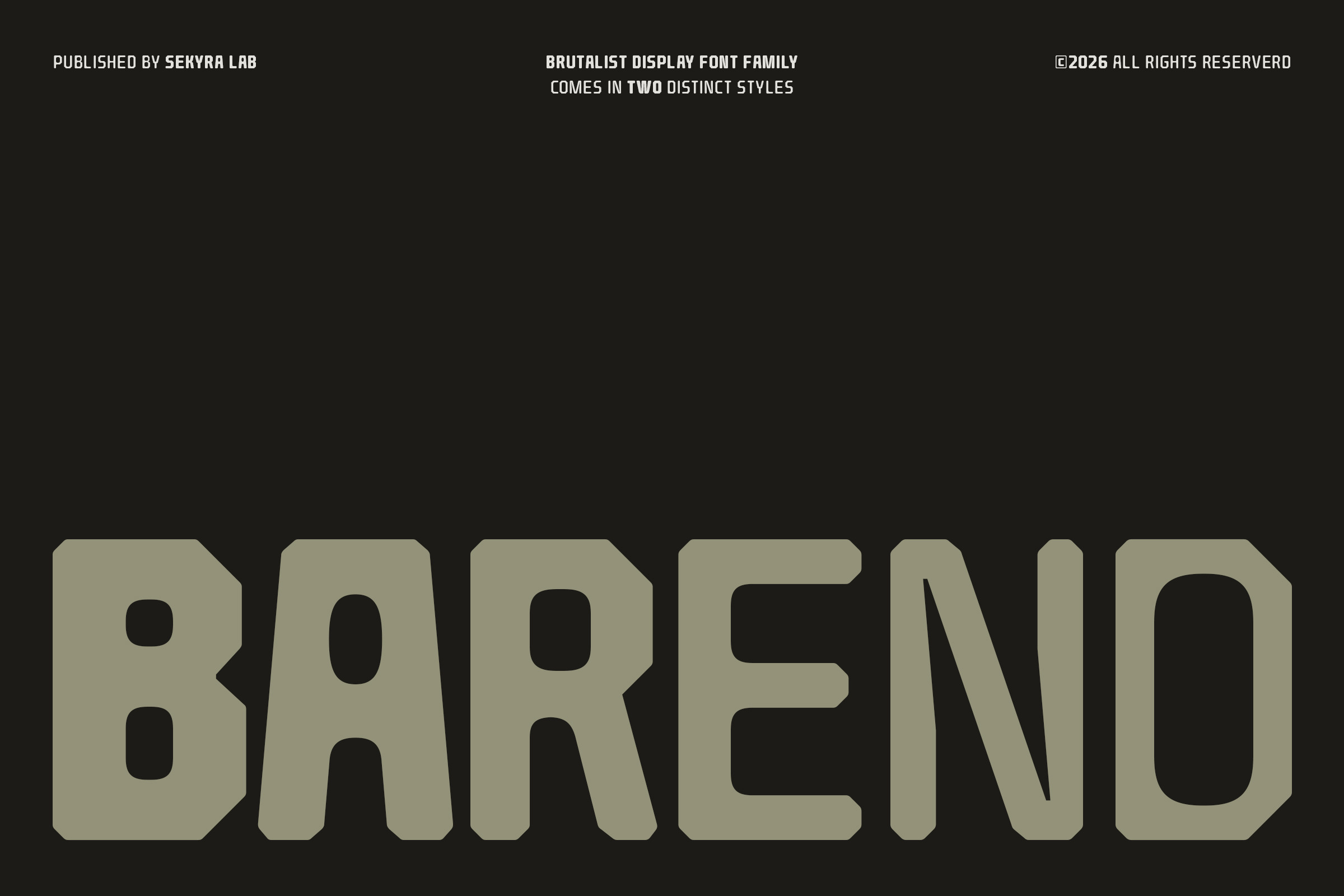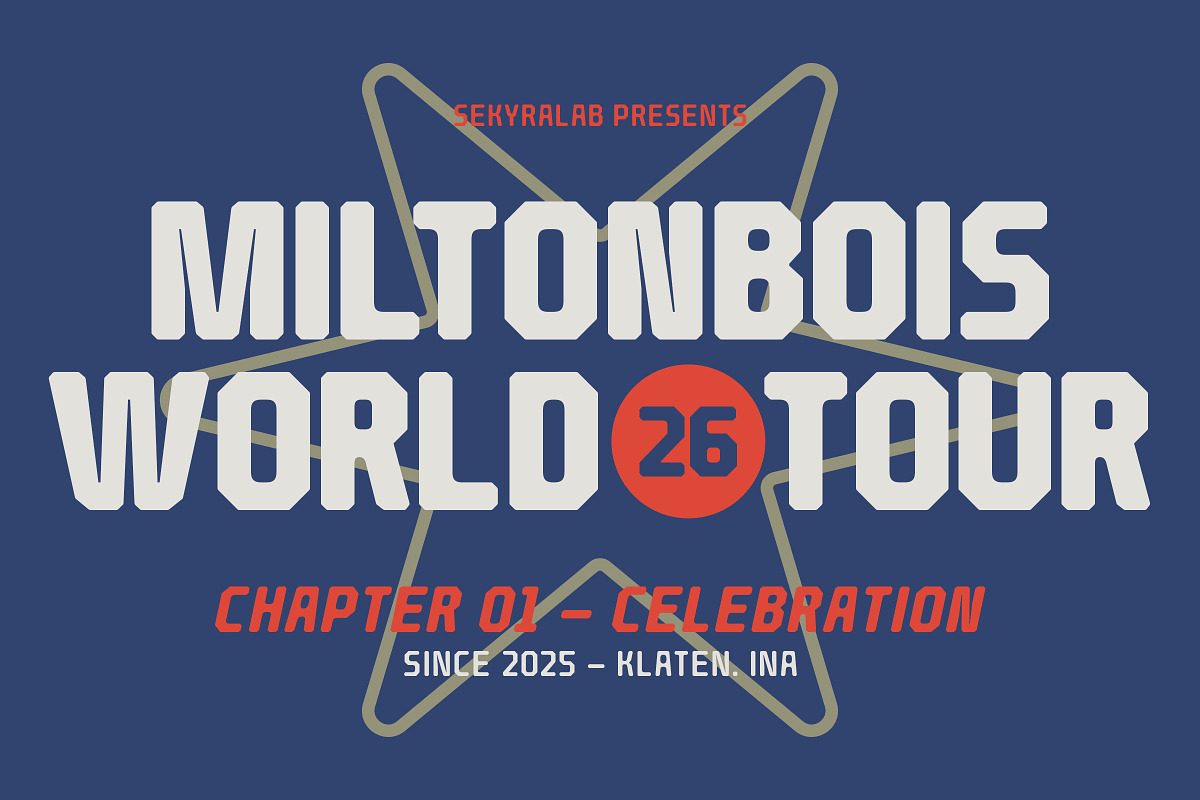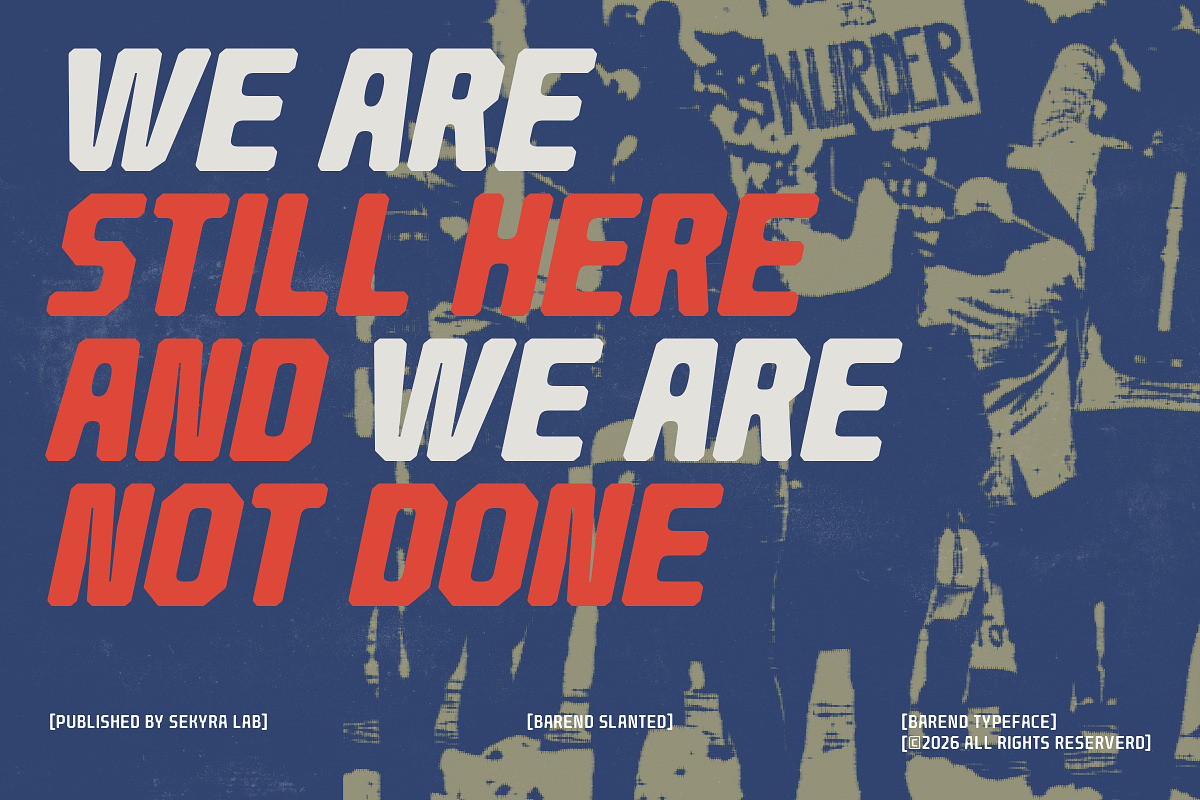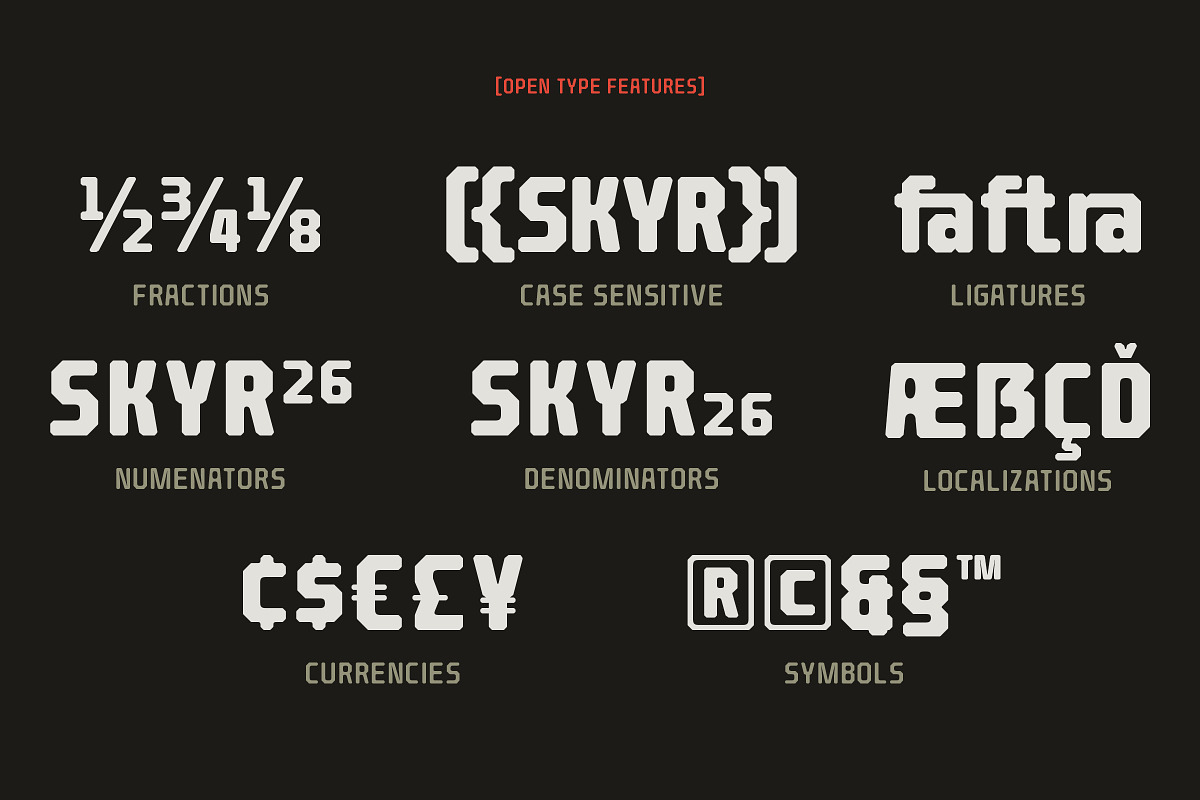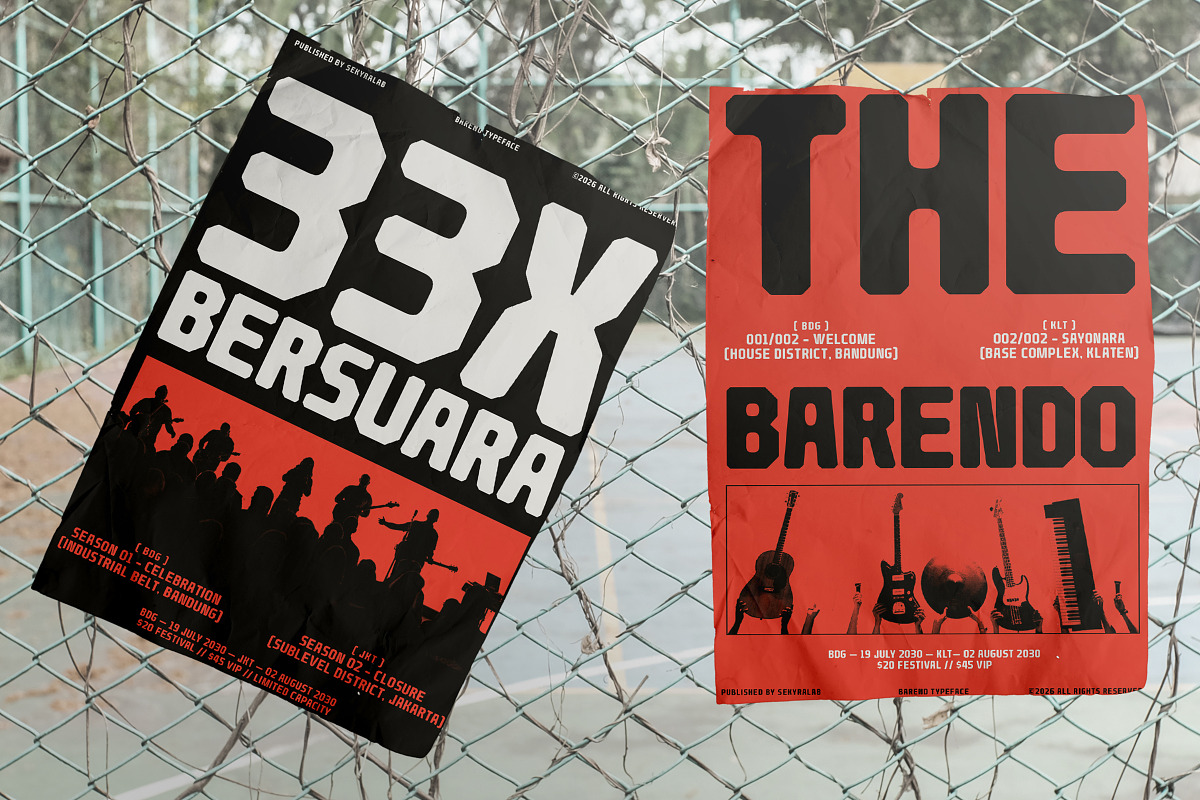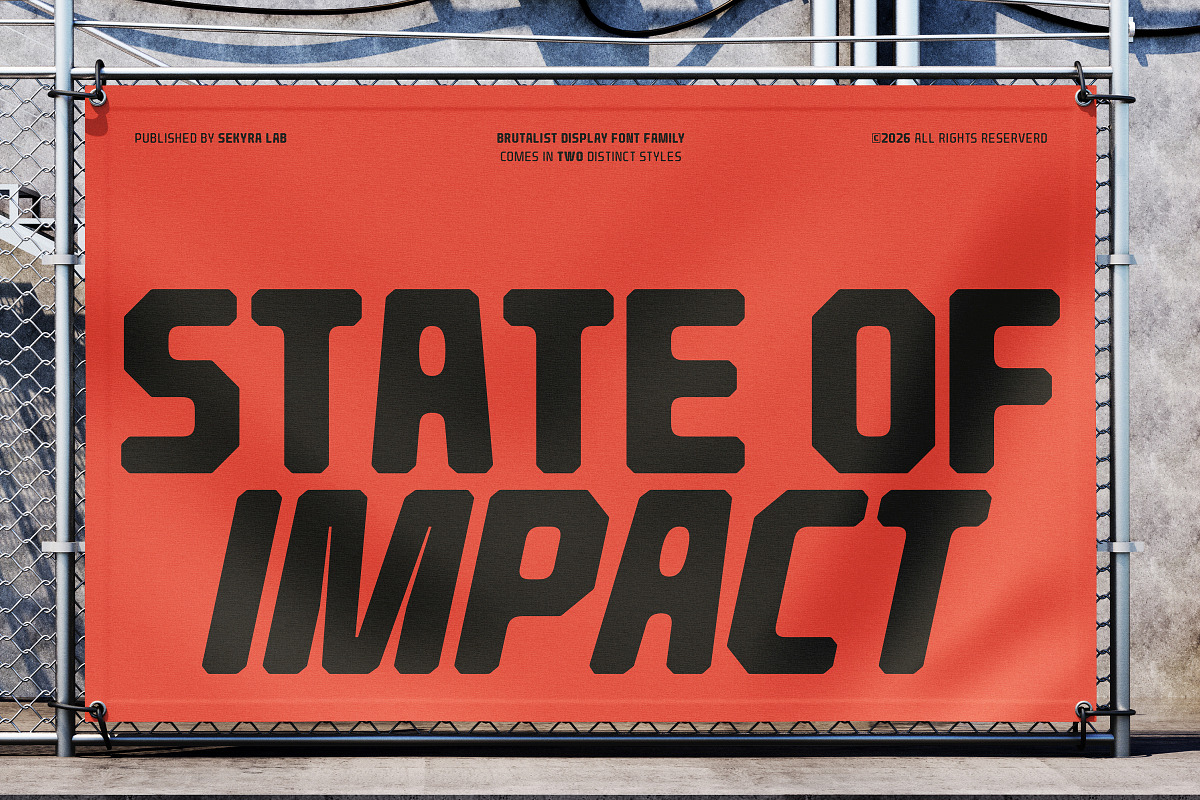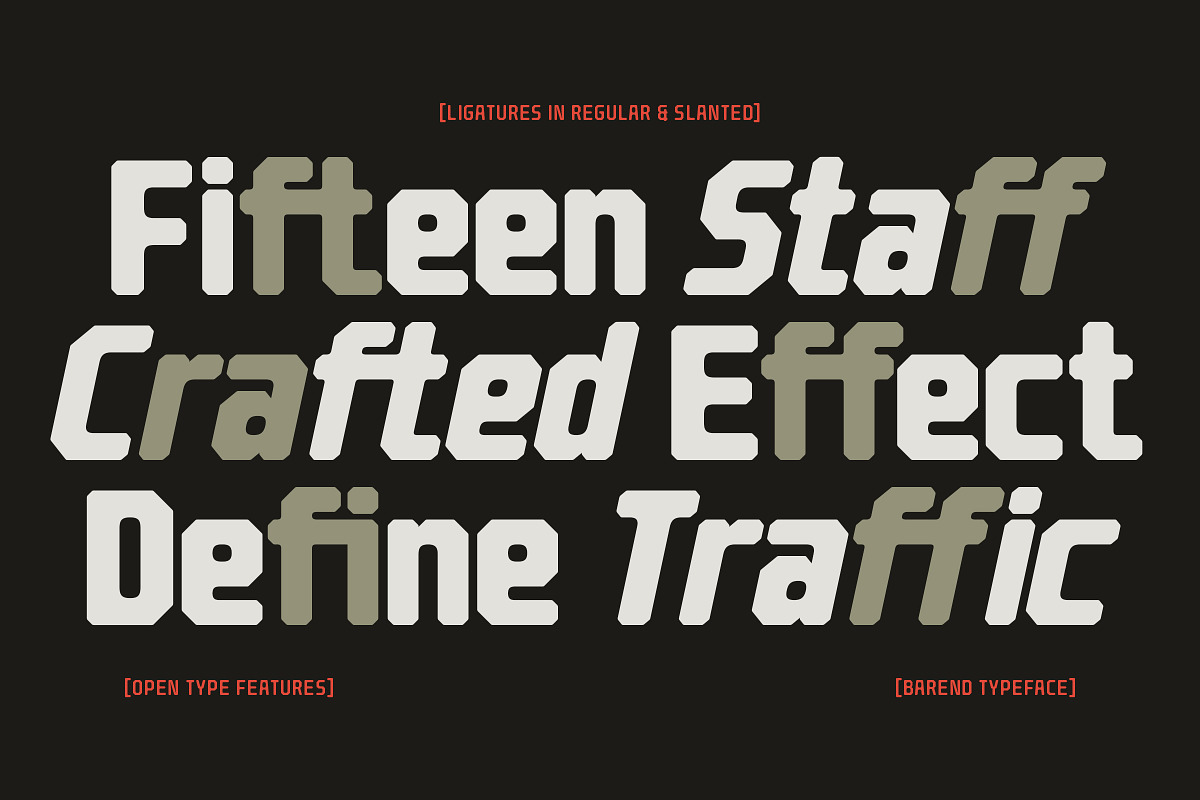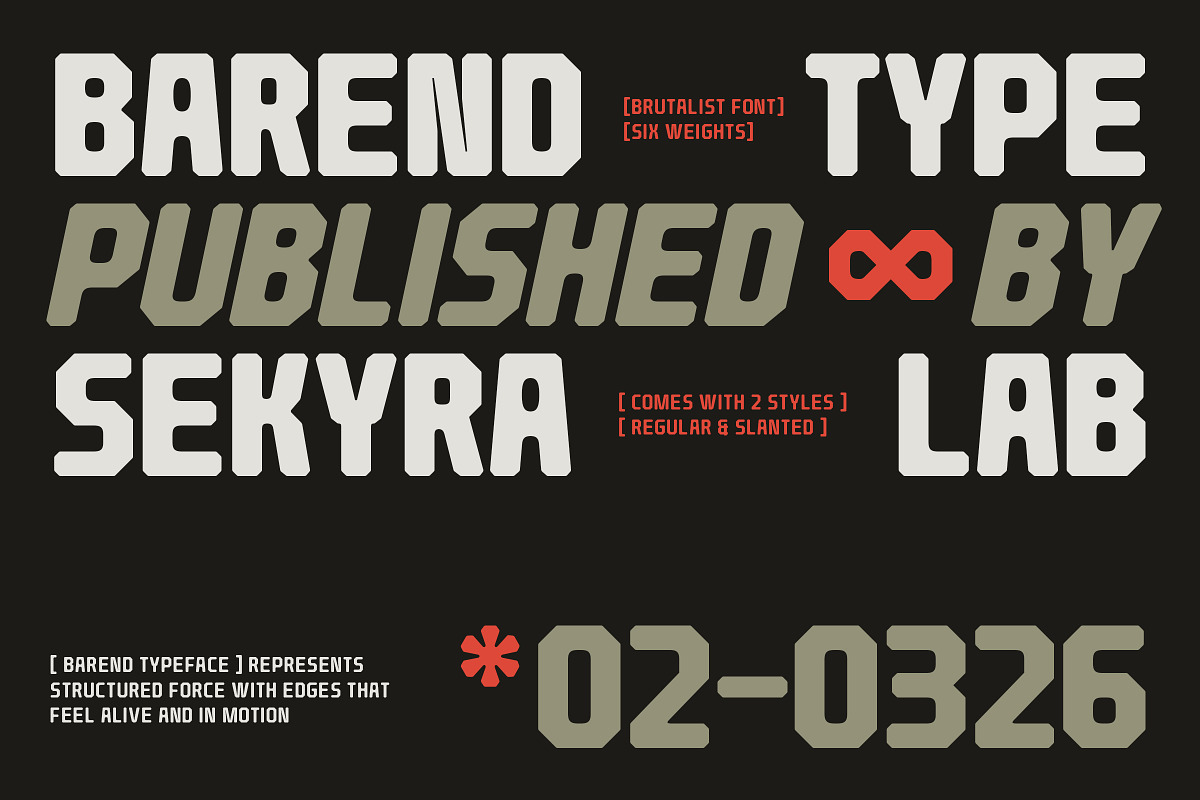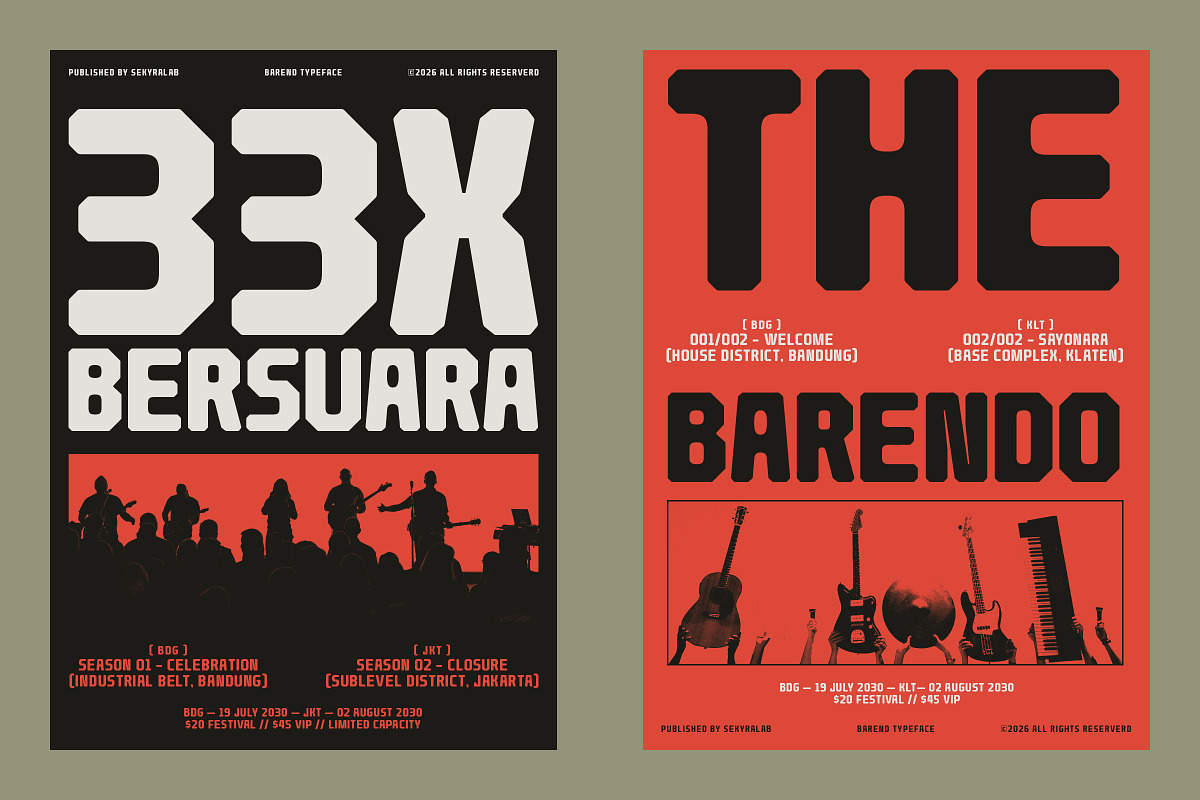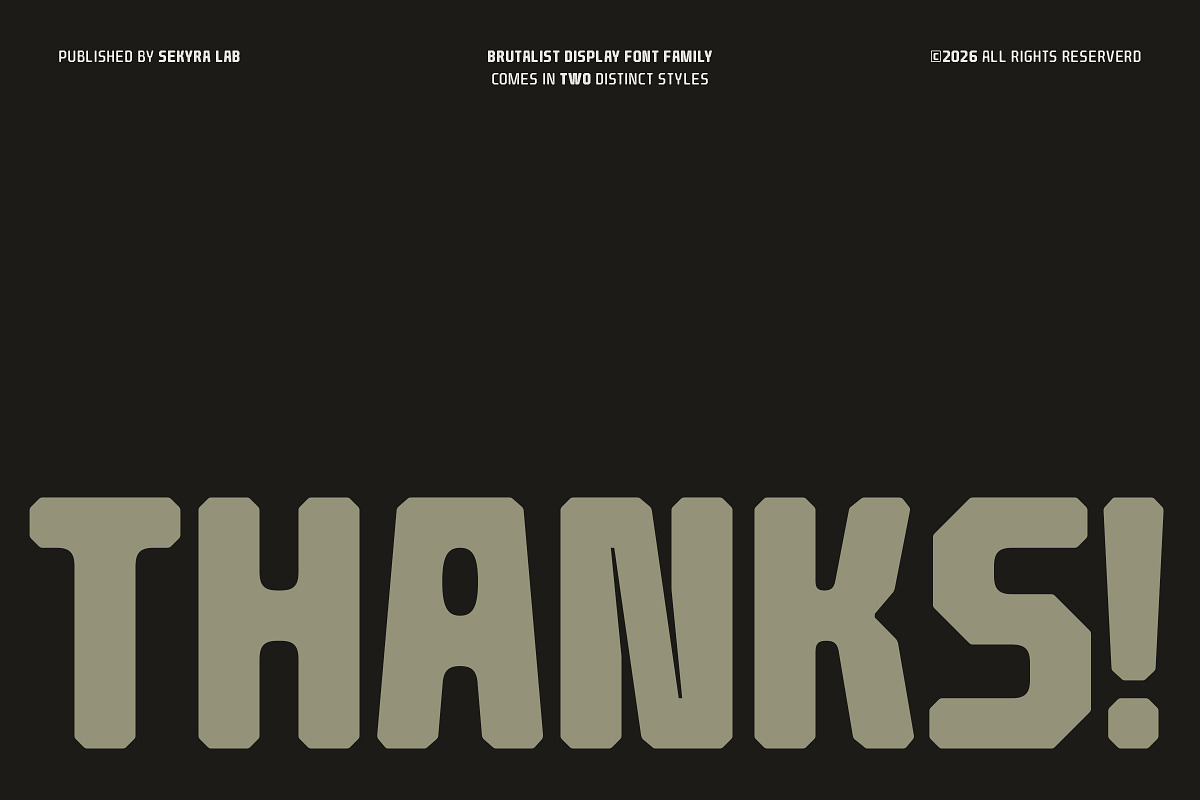
Barend - Brutalist Display Sans Font
Barend is a brutalist display font designed to bring boldness and confidence into your creative projects. With its strong geometric shapes, sharp edges, and solid structure, this font delivers a powerful visual impact while remaining versatile for various design needs. Whether you're working on branding, posters, or digital content, it helps your work stand out effortlessly.
This font is perfect for designers looking to create modern, industrial, and high-impact visuals. Its unique brutalist style makes it suitable for both contemporary and retro-inspired designs, giving you flexibility across multiple creative directions. From bold headlines to eye-catching layouts, it ensures your typography grabs attention.
Key Features: • 6 Styles included (Light, Regular, Medium, Semi Bold, Bold, Extra Bold) • Multilingual Support • Uppercase & Lowercase Characters • Numbers & Punctuation • OpenType Features • File Formats: OTF, TTF, WOFF